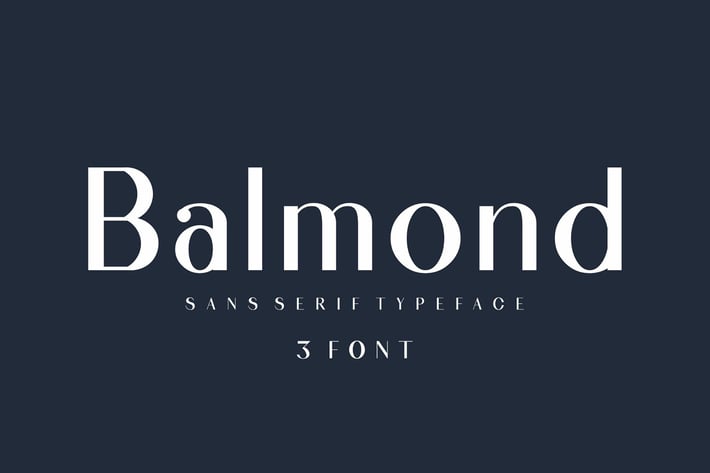
Balmond Sans Serif 3 font
Alfinart
Balmond Sans Serif is a cool, bold and versatile 3 style sans serif font . It is defined by smooth curves and is perfect for fashion branding or editorial designs. Add it confidently to your projects, and you will love the results.
- Balmond (Regular)
- Balmon (Bold)
- Balmond (Outline)